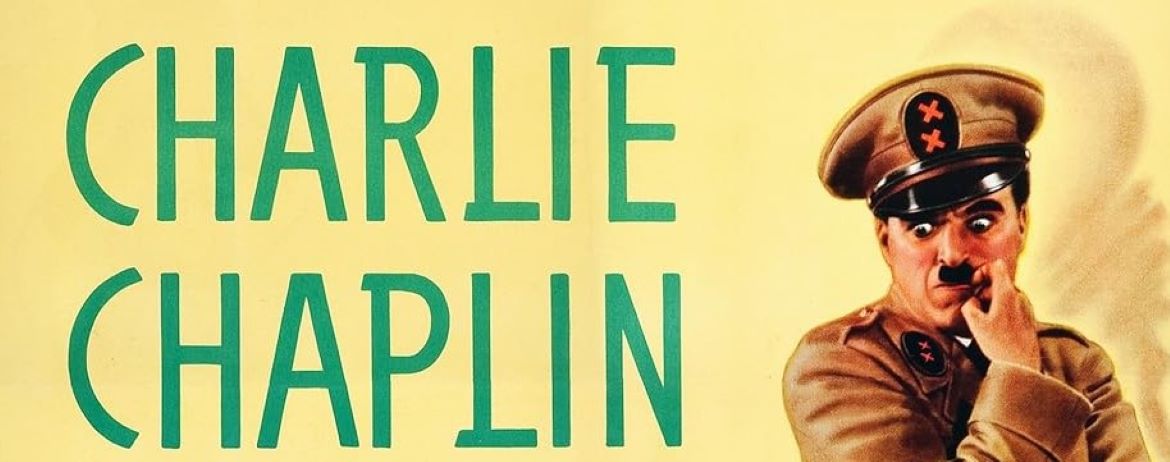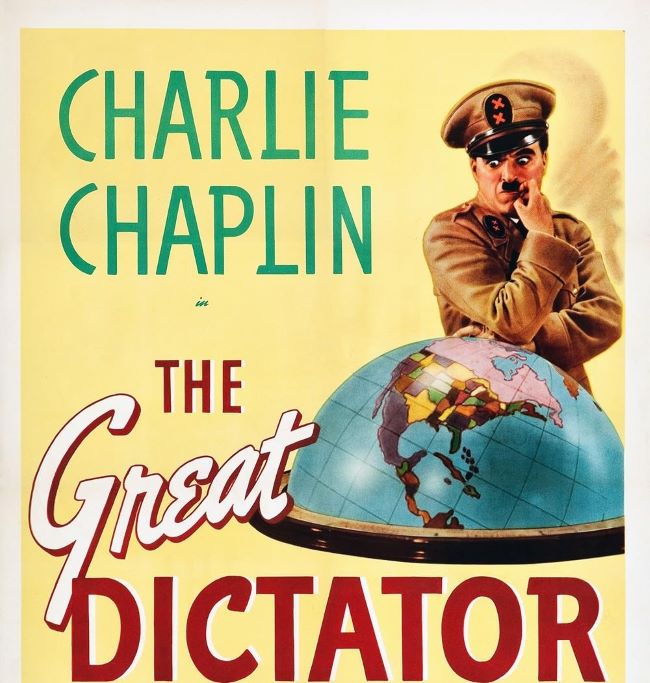
The The Great Dictator font reflects the boldness and sharp wit of Charlie Chaplin’s legendary 1940 satire. Just as the film used humor to challenge authoritarianism, the typography conveys strength, authority, and a sense of old-world propaganda. The The Great Dictator font is instantly recognizable with its blocky, commanding style that mirrors the political posters of the era.
In the original promotional material, the lettering is heavy and bold, almost resembling military signage. This was no accident—the type captures the tone of the film perfectly, balancing parody with seriousness. Today, designers turn to the The Great Dictator font or similar alternatives when they want to evoke vintage propaganda aesthetics, historical posters, or a strong, commanding message in their design work.
The Great Dictator Font
While the film’s typeface was custom-made, several alternatives recreate the same mood. Fonts like Futura Black or Gothic Modern are often used as substitutes, while fan-made versions inspired by the original posters are also available.
The The Great Dictator font isn’t just typography—it’s a piece of cinematic history. Its commanding style reflects the satirical yet deeply human message Chaplin delivered, making it a timeless choice for designs rooted in strength, parody, or history. You can also check our free fonts collection.